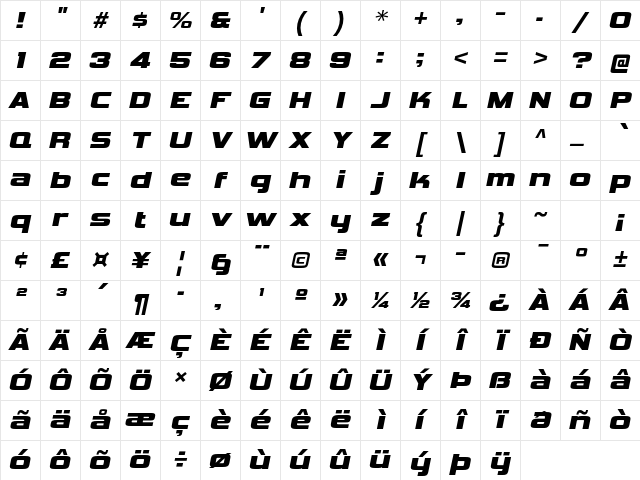
Complete Vipnagorgialla Bold Italic glyph index. Displaying only characters natively supported by Vipnagorgialla Bold Italic font.
Vipnagorgialla is a composed and adaptable typeface that performs quietly and consistently across a wide range of design contexts. The slanted form adds forward momentum and visual energy. Its bold stroke weight gives it real presence on the page.
Pro Tip: Use Vipnagorgialla for emphasis, pull quotes, and subheadings where its slanted energy can add rhythm to the layout.